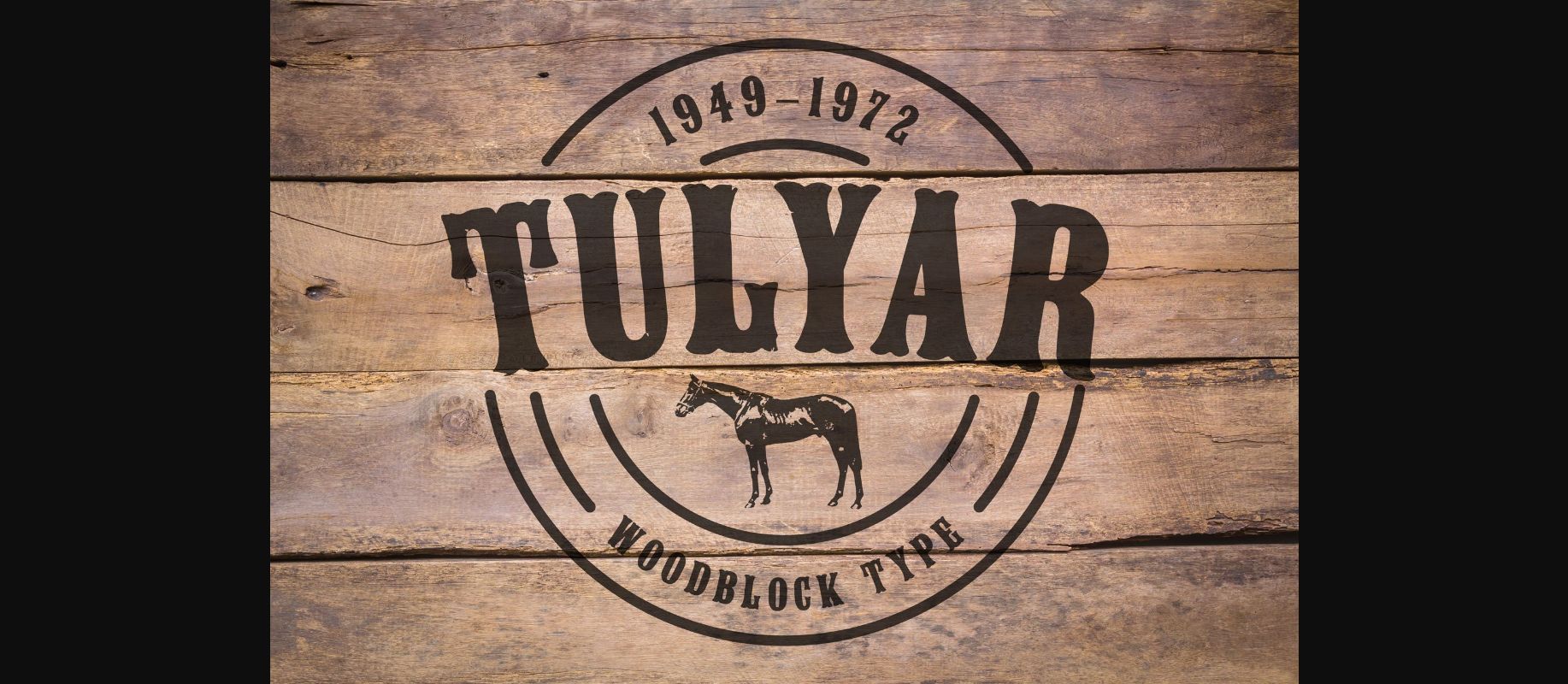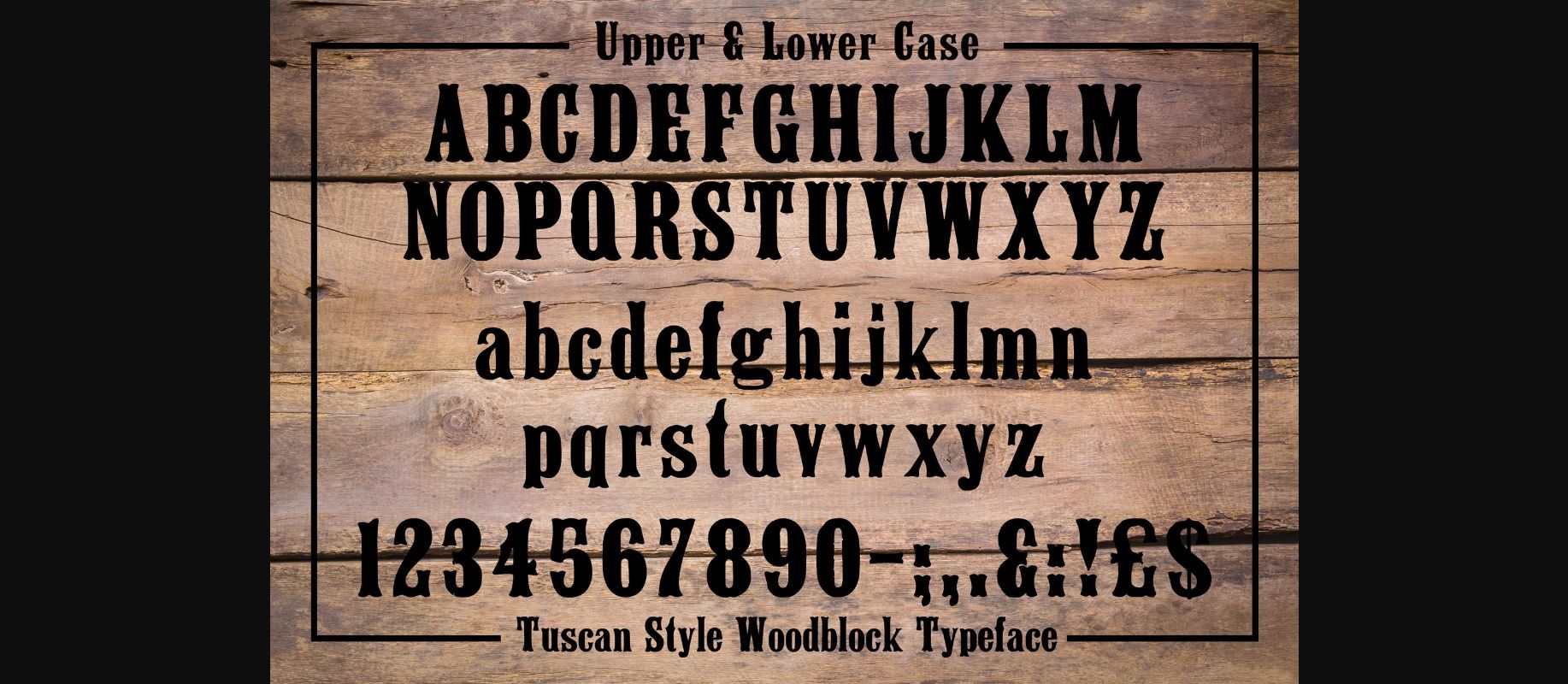
About Tulyar Font
Tulyar is a Tuscan style display typeface in both upper and lower case. It’s based on traditional woodblock lettering and features a unique vintage style.